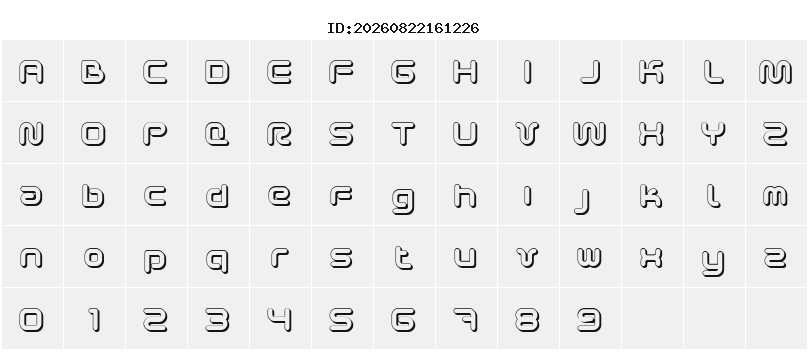
Sci Fied 2002 Ultra Preview
• Font Name: Sci Fied 2002 Ultra
• Full Font Name: Sci Fied 2002 Ultra
• Version: Version 1.0; 2002
• Designer: Andreas Nylin
About Sci Fied 2002 Ultra.ttf
Sci Fied 2002 Ultra.ttf is a modern, elegant sans-serif font designed for ultimate readability and visual harmony. Perfect for branding, headlines, web design, and print materials.